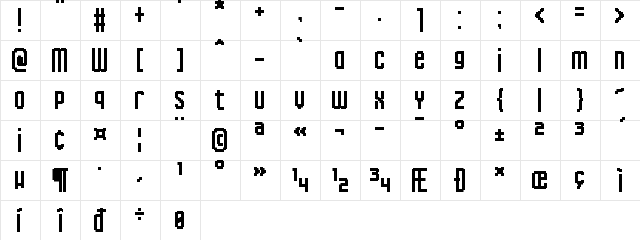
Inky Thin Pixels Regular
Design Context for Inky Thin Pixels Typeface
Inky Thin Pixels celebrates the constraints of early digital type, turning pixel geometry into a distinctive and immediately recognisable style.
Well-suited to indie game interfaces, retro computing aesthetics, and pixel art-adjacent design work.
Pro Tip: Use Inky Thin Pixels at sizes that align with its pixel grid for the sharpest rendering — scaling to non-integer multiples can introduce unwanted blur.